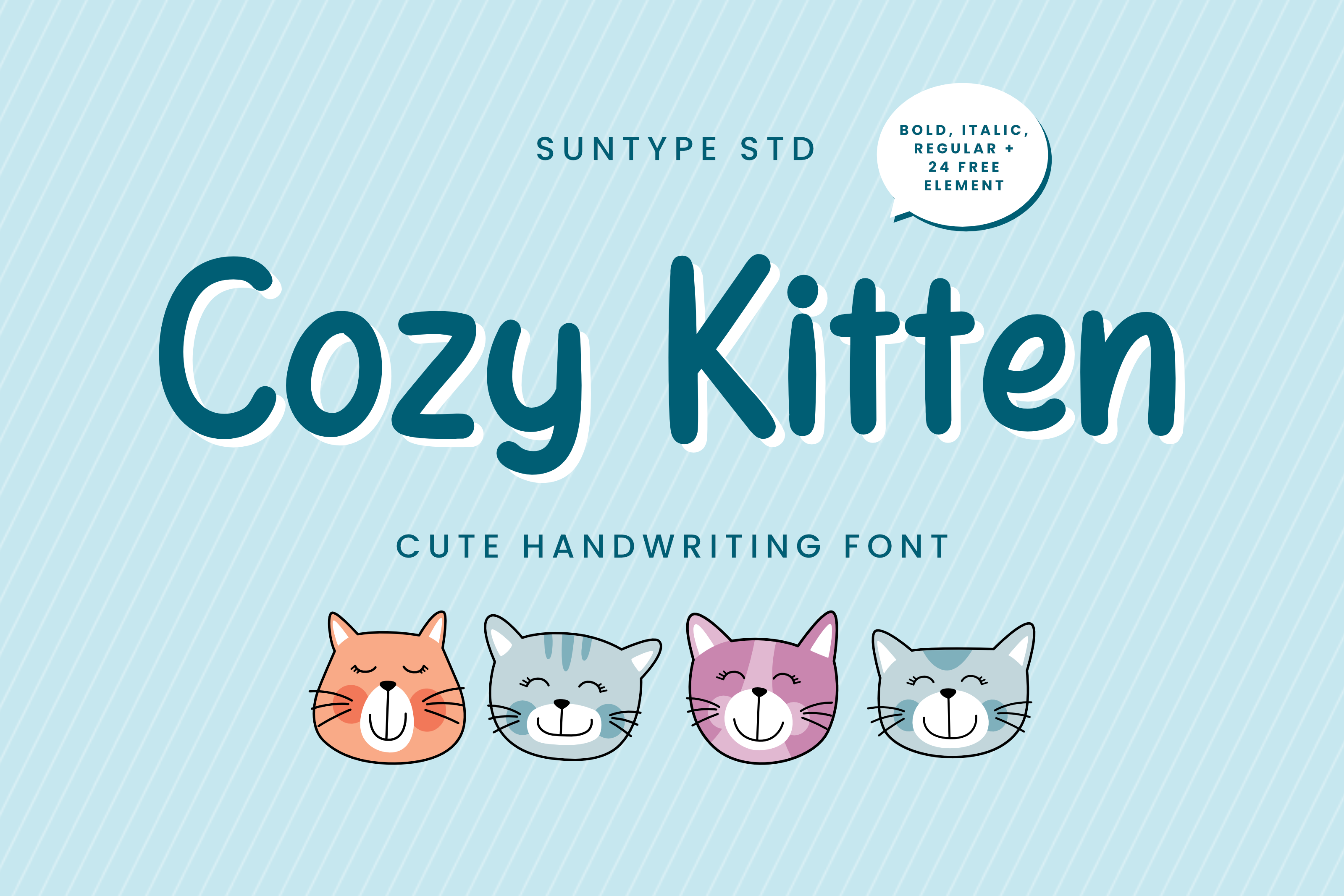
Cozy Kitten Handwriting Font
Introducing our delightful cute fonts, curated to infuse your projects with charm and whimsy. Picture a font that feels like a warm hug, where every letter is crafted with love and care. That's what you get with our selection—a perfect blend of playful doodles, rounded edges, and cheerful curves that make each character pop with personality.